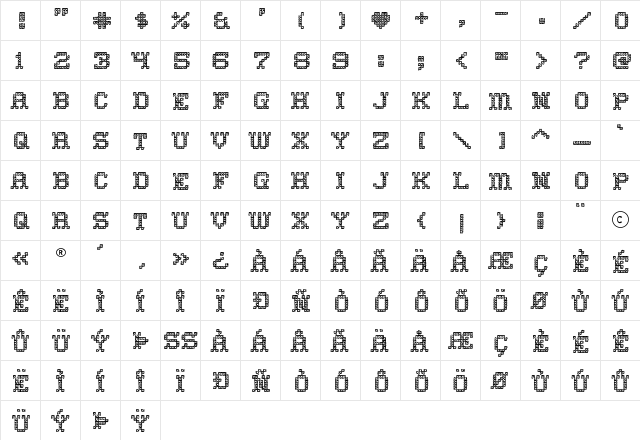
Home Sweet Home Outline
Design Context for Home Sweet Home Typeface
Home Sweet Home brings ornamental detail and strong personality to headlines and identities, where visual impact matters more than quiet functionality.
Font Pairing: Pair with a clean neutral sans-serif for body copy to let Home Sweet Home's character lead without overwhelming the composition.
Pro Tip: Use Home Sweet Home exclusively at display sizes — it was designed to be seen, not read at length. Let a neutral companion handle body copy.